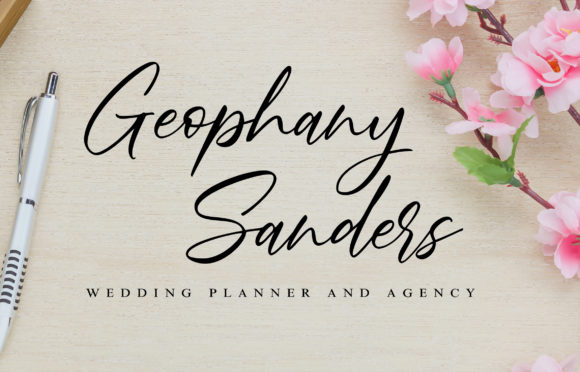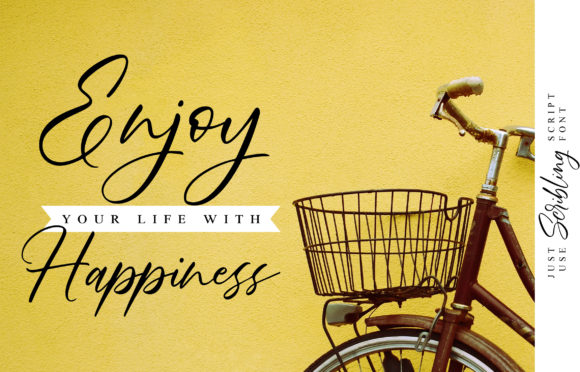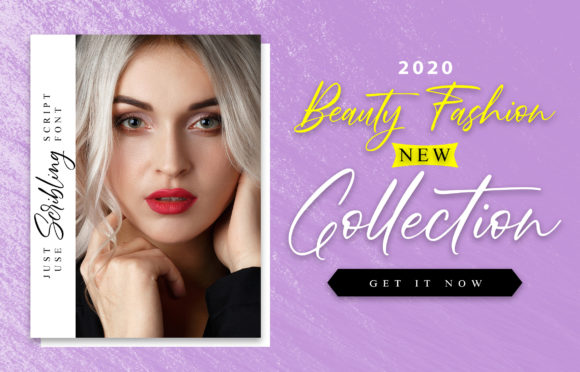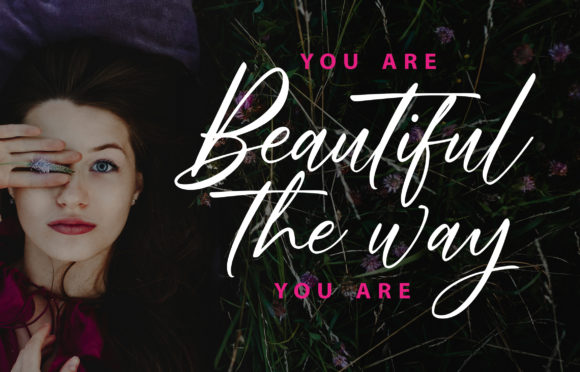
Introduction to Scribbling Font
Scribbling is a beautiful handwritten font carefully created with a touch of elegance.
This is a beautiful combination of timeless elegance and authentic calligraphy .
Key Features of Scribbling Font
Why Choose Scribbling Font?